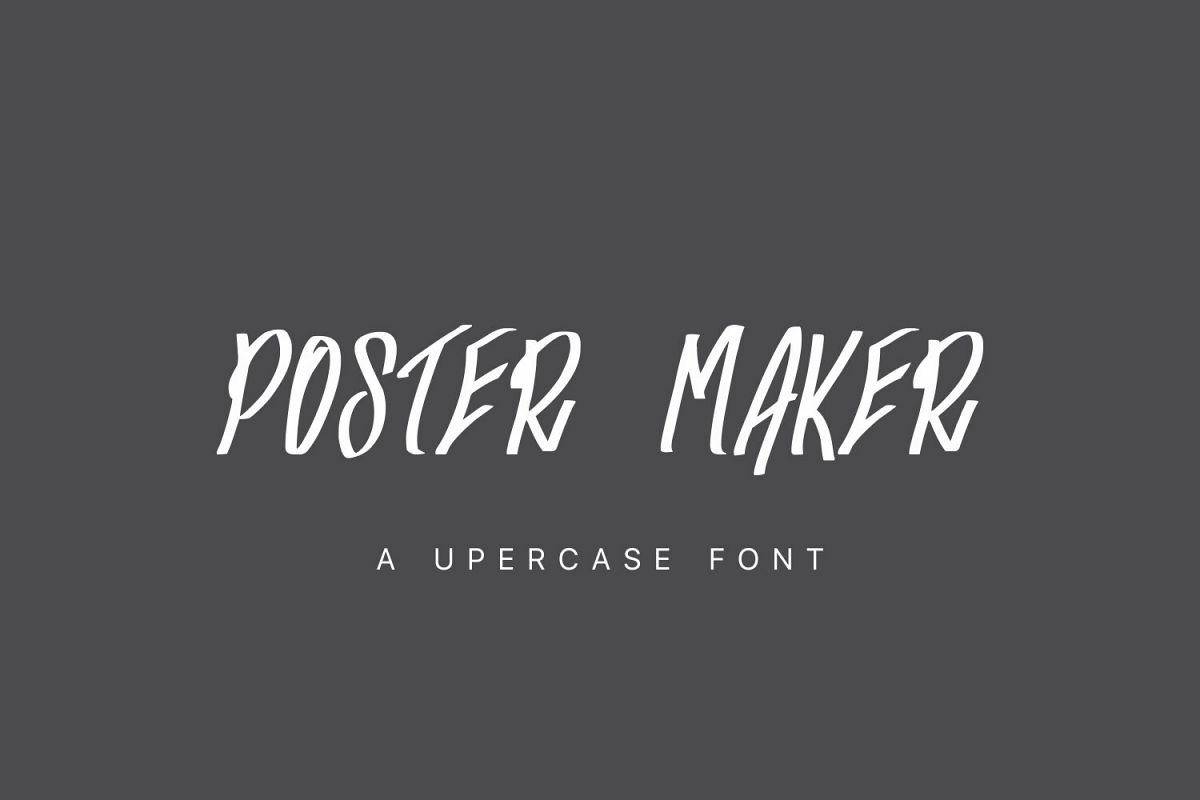
Poster Maker
Poster Maker - is a fountain with a style of marking pen, all in capital letters, ideal for vintage art, relaxed and also to be used in advertising materials such as: Poster of supermarkets, shop window in malls etc ...